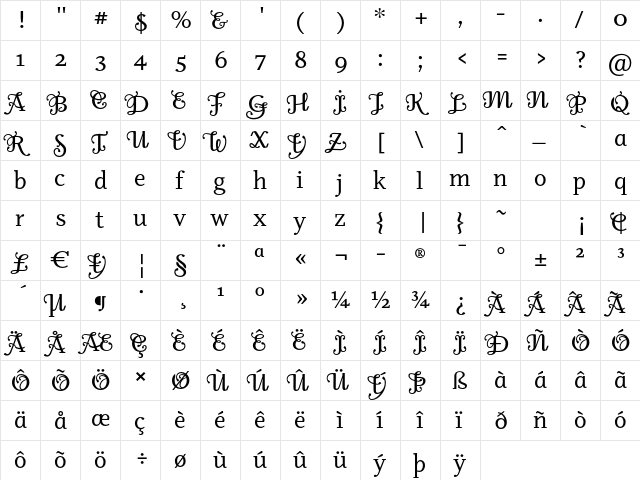
Odile Deco Initials Font Preview
Odile Deco Initials
Odile Deco Initials Font Details
| Style | Deco Initials |
| Foundry | Sibylle Hagmann | Kontour |
| Designer | Sibylle Hagmann |
Design Context for Odile Typeface
Odile takes a measured approach to typography — its balanced proportions and neutral character make it a reliable workhorse for both digital and print work.